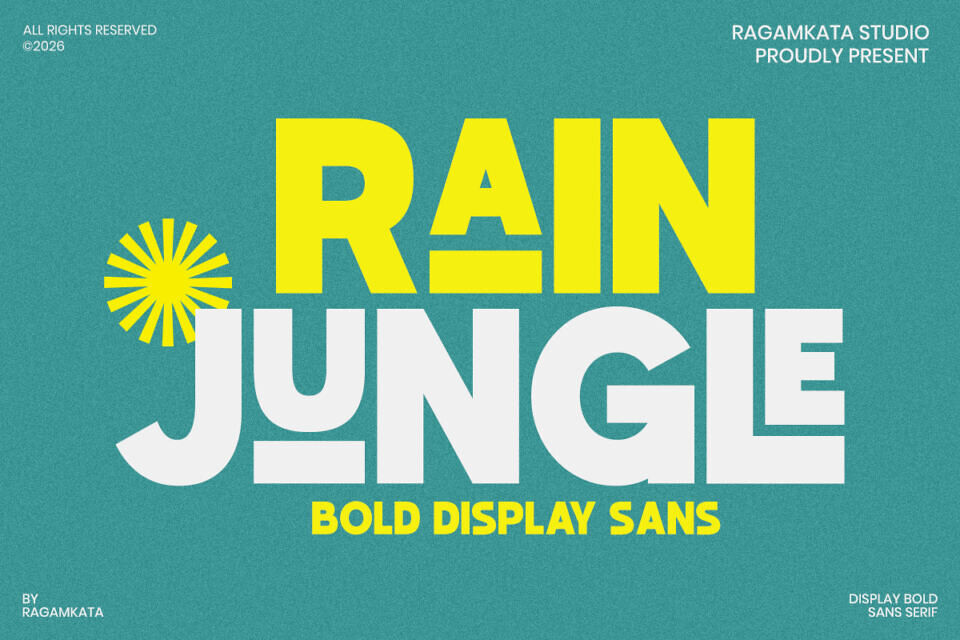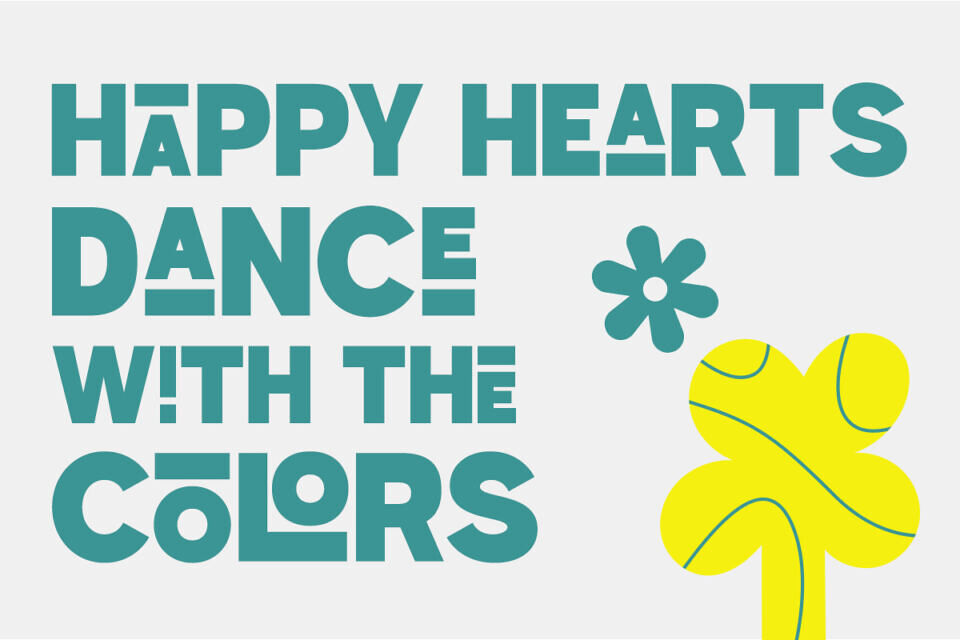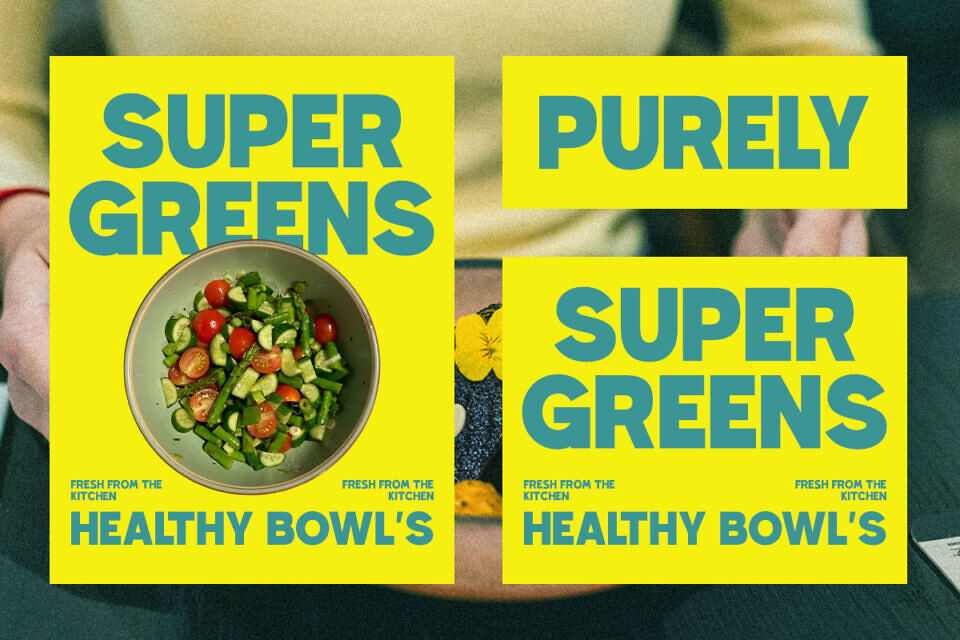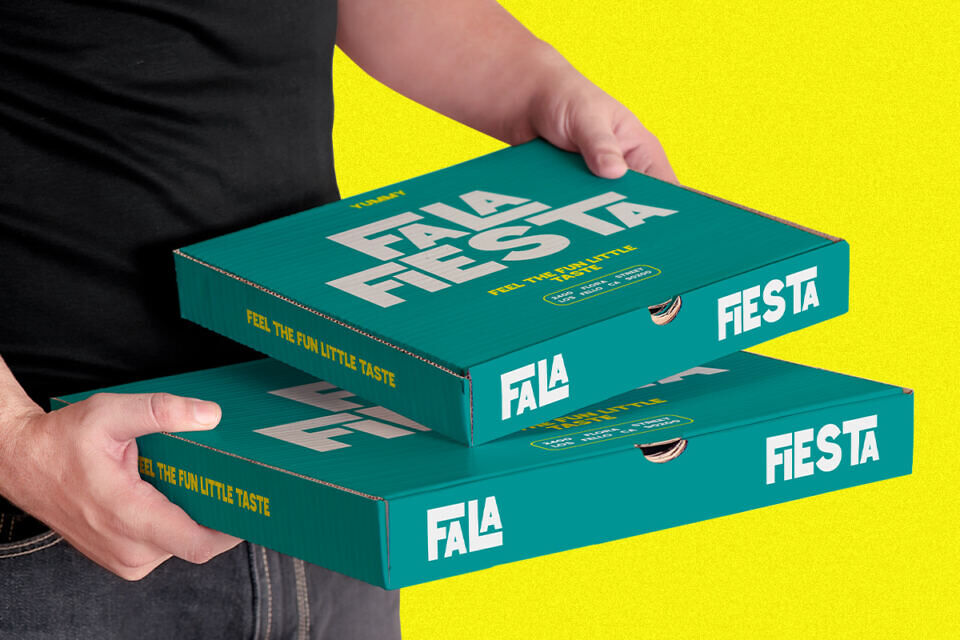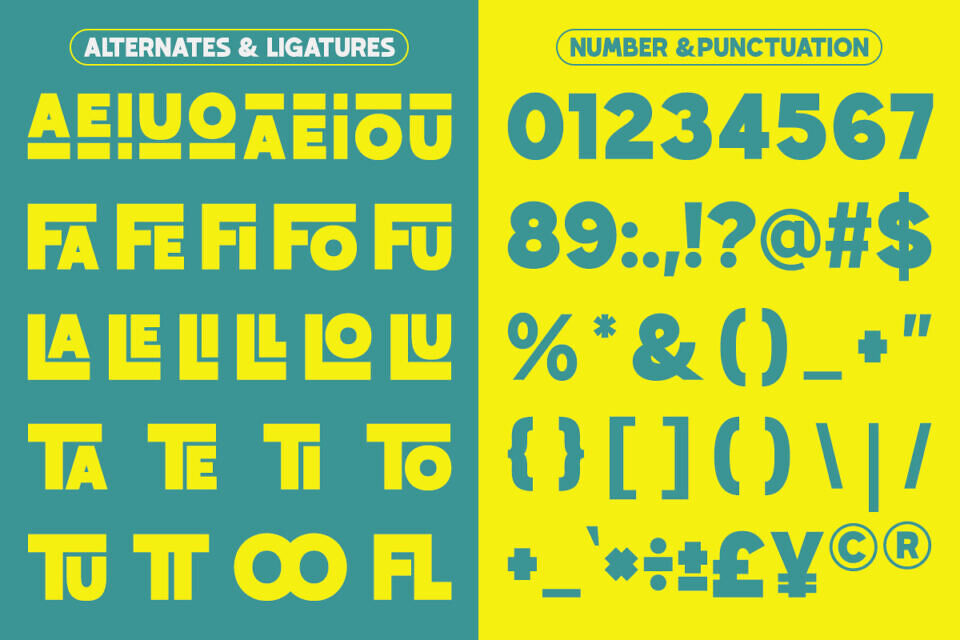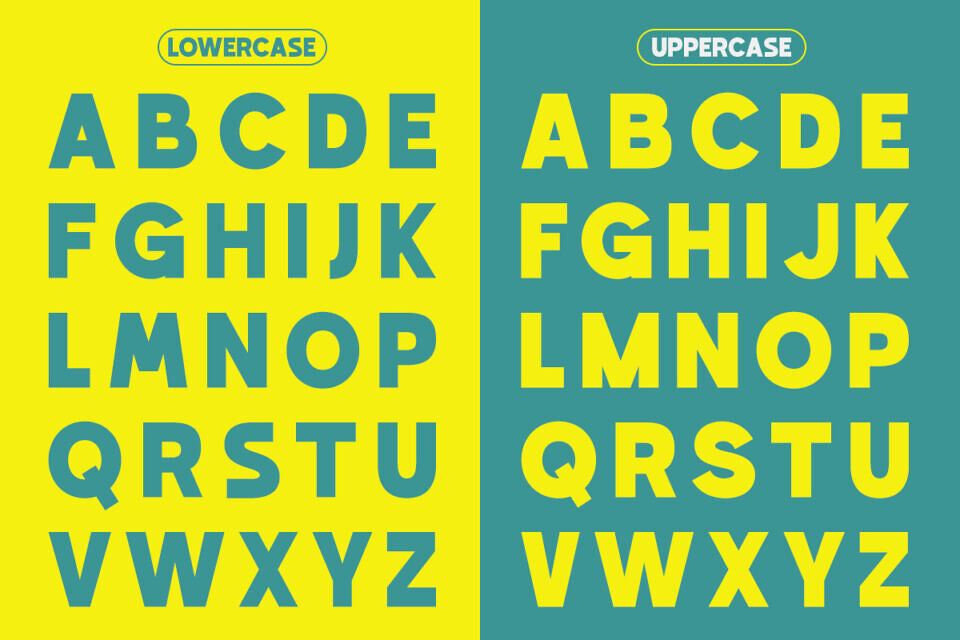
Rain Jungle Font
Meet Rain Jungle, a bold display sans serif typeface built to make an instant visual impact. With its chunky geometric shapes, playful modern structure, and strong headline presence, this typeface delivers the perfect balance between bold branding energy and contemporary creativity.
Perfect for logo design, branding projects, poster headlines, packaging, social media graphics, editorial layouts, advertising campaigns, merchandise, web design, and product promotions. Its bold sans serif construction makes it especially effective for lifestyle brands, food packaging, creative campaigns, and expressive visual identities.